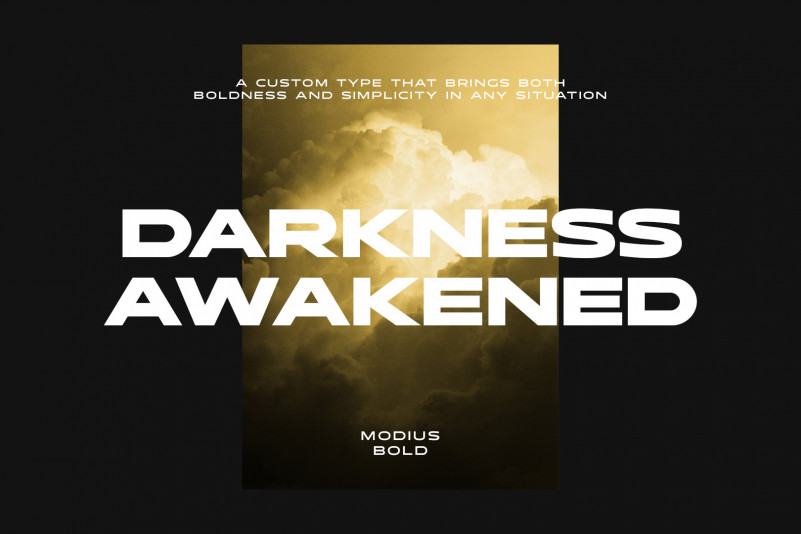
Modius Extended Font
Introducing Modius Extended Font is a extended custom type that brings both boldness and simplicity. Inspired by a simple and modern urban design style which impresses clearly and loudly if used as headline text.
It consists of two font weights, regular and bold, each carrying a minimalist and strong message. It’s bold by nature, it always finds space for an elegant touch and a modern display that can be used for streetwear brand, posters, album art, and other typography needs.